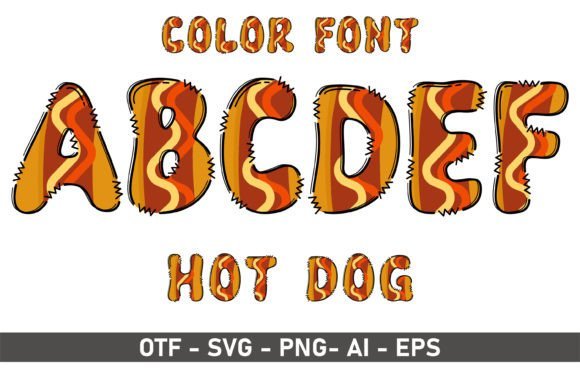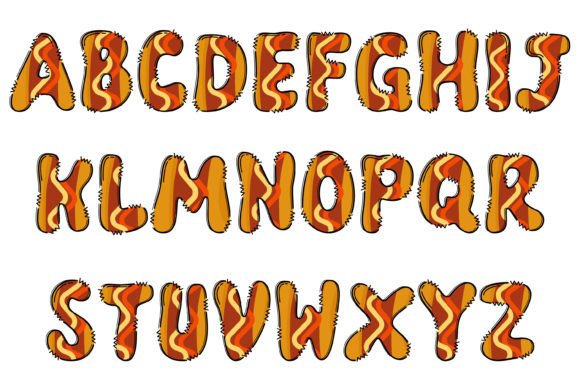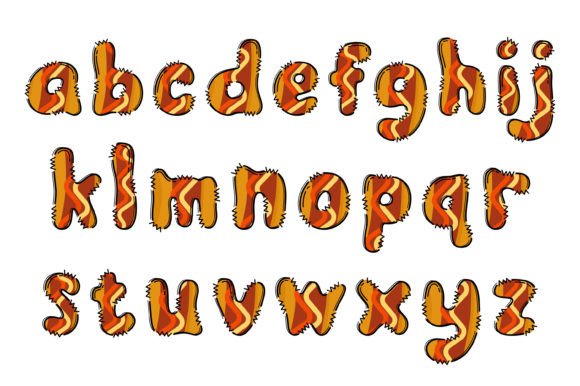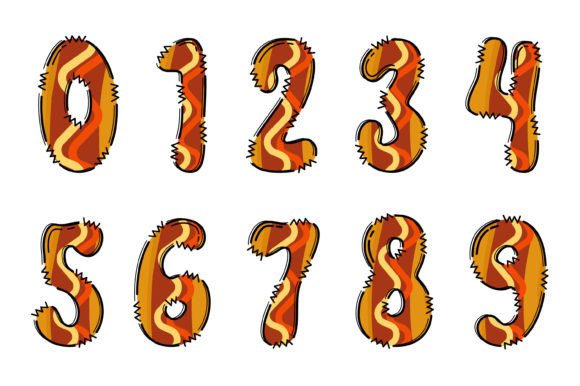
The Perfect Bite for Your Design: Introducing Hot Dog Font
Have you ever found yourself staring at a blank page, brainstorming the perfect font to capture the playful essence of a children’s book or a whimsical poster? I know I have! The right font can make all the difference in conveying a message or setting the tone for a design project. That’s where the Hot Dog Font comes in – a delightful, artistic font that’s sure to add a splash of personality to any design.
Valued by designers for its versatility and charm, the Hot Dog Font is perfect for projects that require a touch of whimsy and fun. With its compatibility with popular design programs like Cricut Design Space and PhotoShop, you can unleash your creativity and bring your designs to life. Whether you’re creating invitations, greeting cards, or children’s books, the Hot Dog Font is sure to be a hit with your audience.
Hot Dog Font Key Features
- Font Size: The font is available in 7 different weights (Thin, Light, Regular, Medium, Bold, Heavy, Black) to suit various design needs.
- Unique Characteristics: The font features a playful, hand-drawn design with bold lines and rounded edges, making it perfect for casual and creative projects.
- Language Support: The font supports a wide range of languages, including Latin, Cyrillic, and Greek scripts.
- Font Metrics: The font’s x-height and ascender/descender metrics are carefully designed to ensure readability and consistency across different font sizes.
Designer Review: “Hot Dog Font”
As a designer, I was initially drawn to the playful and whimsical nature of “Hot Dog Font”. The font’s bold lines and rounded edges give it a fun and approachable feel that’s perfect for casual or children’s-related projects. ✨ I also appreciate the variety of weights and styles available, making it easy to find the perfect fit for your design.
However, there are a few limitations to consider. ⚠️ One major drawback is the font’s limited legibility at smaller sizes. The bold lines that make it so distinctive at larger sizes can become difficult to read when condensed, which may not be ideal for projects that require clear typography. Additionally, the font’s rounded edges can sometimes make it difficult to achieve a crisp, clean look, especially when combined with other fonts or design elements.
Here are some specific areas to consider when using “Hot Dog Font”:
- Use it for projects that require a playful, casual tone.
- Avoid using it for projects that require clear, readable typography at smaller sizes.
- Experiment with different weights and styles to find the perfect fit for your design.
- Be mindful of combining it with other fonts or design elements to achieve a clean, crisp look.
Overall, I think “Hot Dog Font” is a great choice for designers who want to add a touch of whimsy to their projects. While it may not be suitable for every project, it’s definitely a fun and versatile option to consider.
Use the Hot Dog Font to add a playful touch to your designs. It is ideal for creating menus, advertisements, and social media graphics. To get the most out of the font, experiment with different colors and styles to match your brand’s identity.
Alternatives to Hot Dog Font for Designers
Great Vibes is a modern, cursive script font suitable for titles, headings, and short paragraphs. It’s perfect for designs that require a touch of elegance and sophistication. Great Vibes has a more refined and polished look compared to Hot Dog Font, making it a great choice for formal and professional projects.
Pacifico is a beautiful, handwritten font ideal for creative and artistic projects. It’s great for use in headings, titles, and short paragraphs where a personal touch is required. Pacifico has a more relaxed and casual feel compared to Hot Dog Font, making it suitable for designs that require a laid-back vibe.